The Faces Behind Typefaces: new web project is a deep dive into type design pioneers
Design tool Readymag has collaborated with Type Directors Club to create The Faces Behind Typefaces, a new web project which brings together insightful conversations with some of the biggest names in type design history.
Ever wanted to learn what makes a type designer tick? Want to get into the heads of the likes of Paula Scher, Paul Rand and Gerard Unger? Now, thanks to The Faces Behind Typefaces, you can read in-depth conversations with these type design pioneers and many more.
Specially made to look like an editorial, The Faces Behind Typefaces has been launched to coincide with the 75th anniversary of The Type Directors Club, part of The One Club for Creativity.
The club started with just 20 members in New York and has grown to cater to a global audience of typographers, type designers and lettering artists. It's renowned for hosting dozens of engaging online events, the Type Drives Culture annual conference and the profession's most prestigious awards competitions.
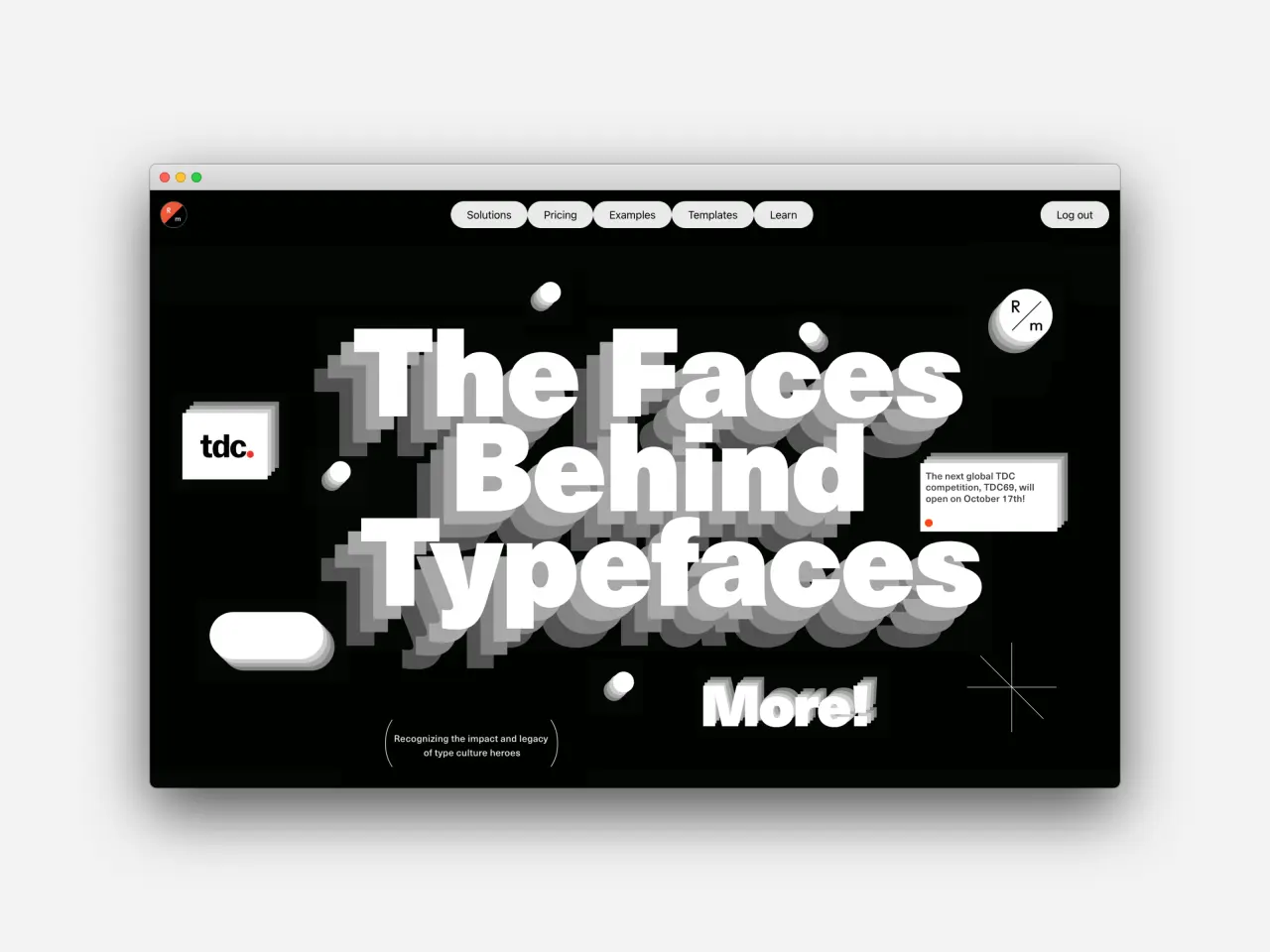
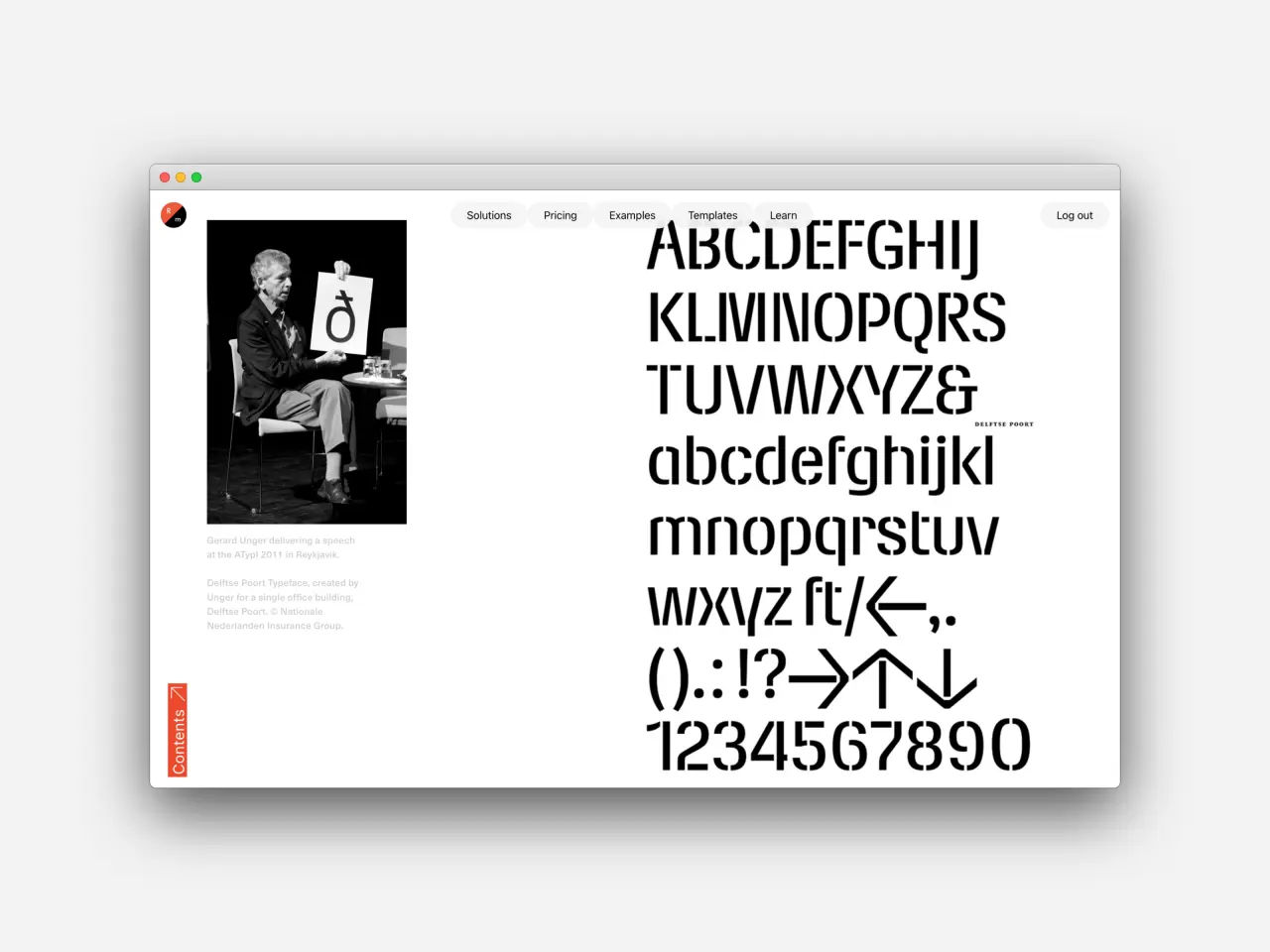
With The Type Directors Club recently awarding Monotype's chief creative type director, Akira Kobayashi, the prestigious TDC medal, Readymag decided to create a web space for meaningful dialogue between generations of typographers.
Designed by Tatiana Egoshina, The Faces Behind Typefaces consists of seven chapters. These include Sven Lindhorst-Emme's talk on Paula Scher's role in type design, Qian Sun's reflections on Paul Rand's legacy, Douglas Davis's discussion on Ed Benguiat's impact on creative fields, Akira Kobayashi's reminisces on Adrian Frutiger and many more.
Alya Datiy, producer at Readymag, said: "Our passion for typography shines through everything we do: Readymag's interface, font library, typography presets and the projects and editorials we produce. Naturally, we have been eager to collaborate with The Type Directors Club for a while. When the opportunity presented itself – the announcement of this year's TDC Medalists – the concept came naturally.
"The Type Directors Club is all about supporting the type community, establishing connections and building new bridges, and with Faces Behind Typefaces, we wanted to highlight their impact. It's why we decided to ask the club's current members, accomplished professionals and creatives on the rise, about the influence of type pioneers on their careers and vision.
"We were pleasantly surprised by how international and inter-generational ties unfolded in our interviews and their stories."
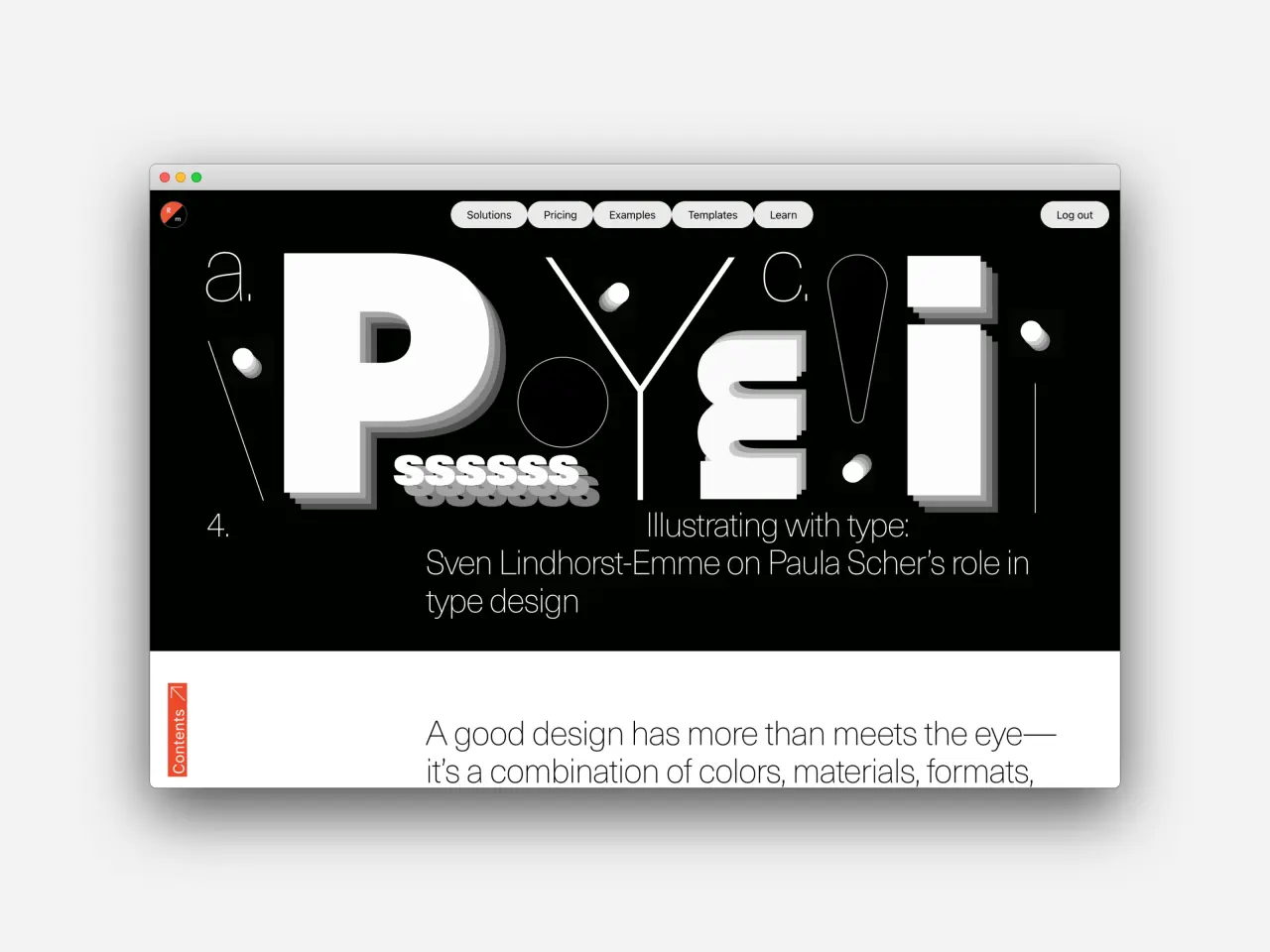
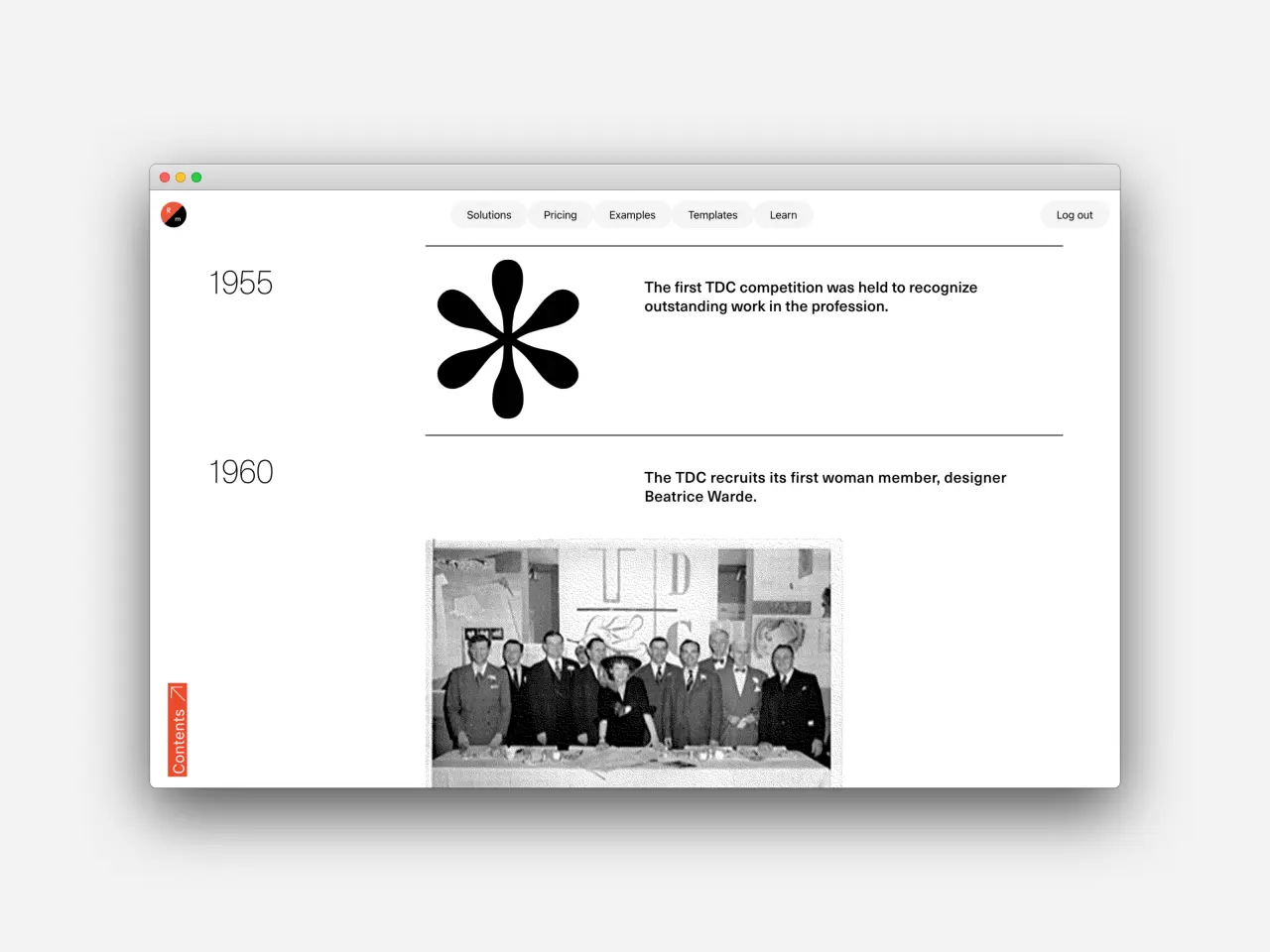
Tatyana Kovalchuk, the chief editor at Readymag, added: "We wanted to convey how modern perspectives, as well as work ethics, could be rooted in the legacy of design figureheads and shed light on exceptional up-and-coming designers. So first off, we chose the members to speak up and then offered them to pick the medalists whose works, approaches and philosophy resonated with them.
"It seems that this ushered in a plethora of mind-bending conversations. There was Luisa Baeta, with a deep hold on her career in typography and an active part of the global female network 'Alphabettes', meeting Gerhard Unger when she started her master's degree classes at Reading University. Later she adopted a few of his teaching approaches into her own projects.
"Then there was Fer Cozzi, an independent type designer, author of award-winning fonts and Professor in the Masters of Typeface Design course at the Universidad de Buenos Aires (UBA), who confesses that as a teacher, she is personally adherent to Rubén Fontana's curriculum and methods."
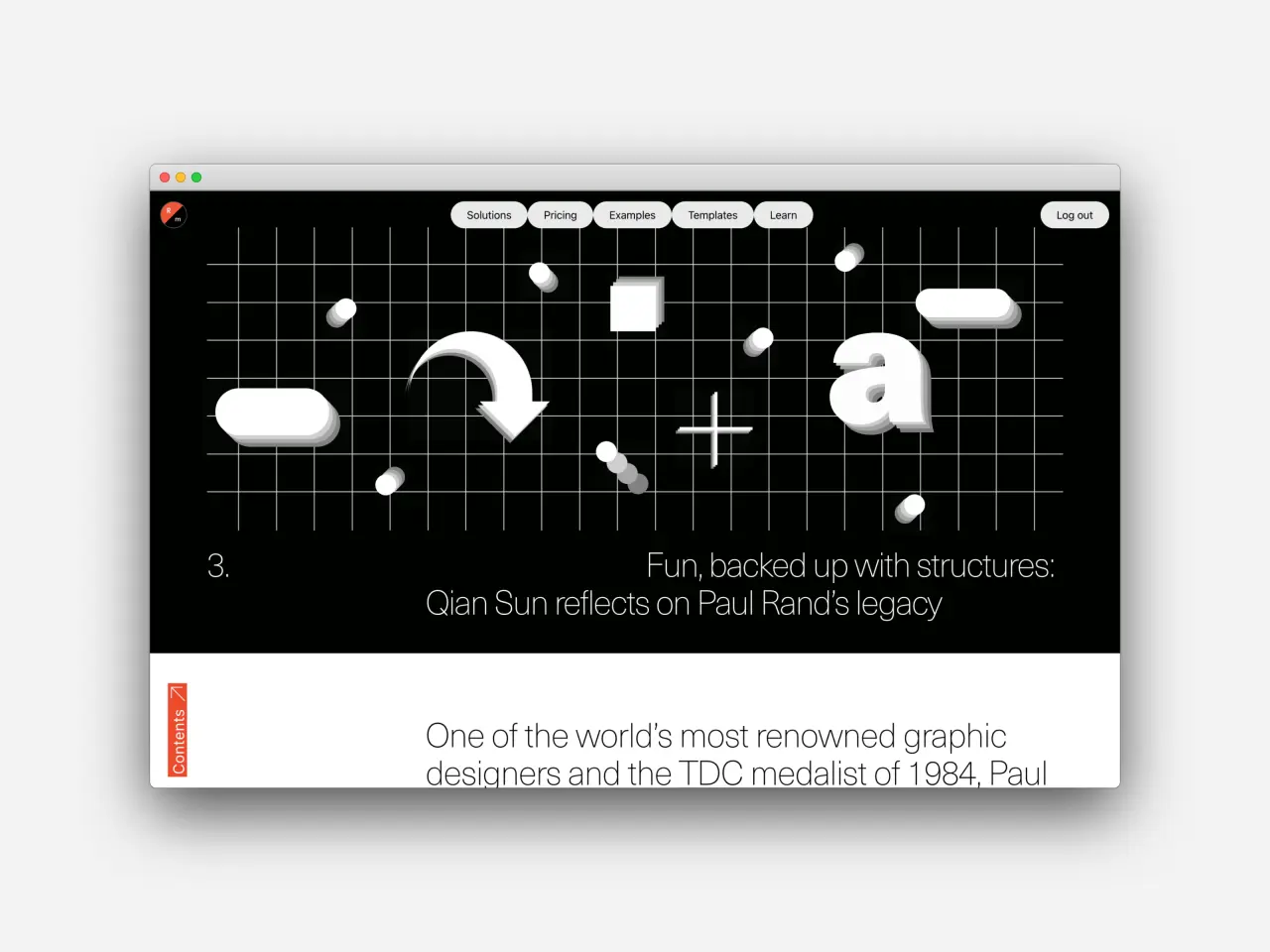
Beautifully designed with slick black and white graphics, The Faces Behind Typefaces contains a wealth of information and context to help broaden your type design horizons or dig deep into a subject area you're already familiar with.
Containing a plethora of type design examples that cover everything from illustration to architectural structures and social spaces, this web project also precedes Akira Kobayashi's presentation of the TDC Medal as part of The One Club for Creativity's Creative Hall of Fame ceremony, which will take place in New York on 27 October 2022.